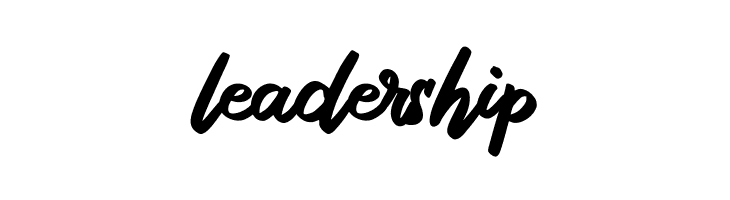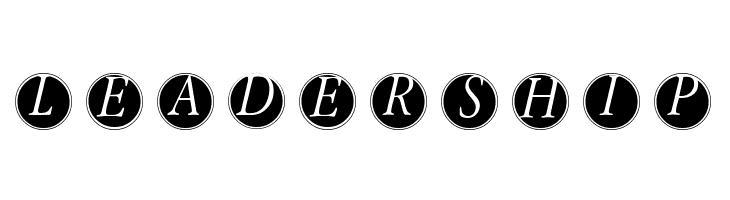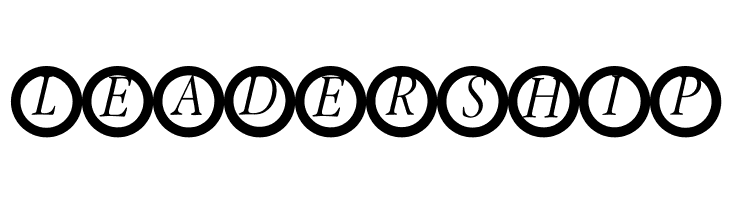
A bold, 3D font with a futuristic and dynamic style.
A bold, 3D italic typeface with a futuristic and energetic style.
A bold, angular, and condensed font with a futuristic style.
A bold, angular, condensed italic font with a dynamic and modern style.
A bold, futuristic font with expanded width and semi-italic style.
A bold, italicized, and expanded font with a futuristic and dynamic style.
A bold, italicized font with sharp, angular edges and a futuristic style.
A bold, angular font with a leftward slant and geometric style.
A bold, futuristic outline font with angular, geometric characters.
A bold, outlined, and italicized font with a futuristic and dynamic style.
A sleek, futuristic font with geometric elements and clean lines.
A bold, condensed italic font with a modern, futuristic style.
A modern, geometric, and condensed font with a futuristic style.
A sleek, modern, condensed italic font with a futuristic aesthetic.
A sleek, futuristic italic font with geometric lines and a modern aesthetic.
A futuristic, geometric font with clean lines and angular shapes.
A futuristic, geometric font with a sleek, condensed style.
A futuristic, italicized font with geometric and angular design.
A modern, elegant handwritten font with flowing, interconnected letterforms.
An elegant script font with intricate swashes and flowing lines.
A geometric pattern with parallel lines creating dynamic and rhythmic visual flow.
Abstract geometric font with intersecting lines and squares.
A bold, pixelated font inspired by classic video game graphics.
Cartoonish, scene-based display font with gangster motifs.
A bold, playful handwritten font with dynamic strokes and a whimsical style.
A decorative font with italicized characters encased in bold circles.
A decorative script font with letters enclosed in bold black circles.
A decorative serif font with characters enclosed in circular frames, offering a classic and elegant style.